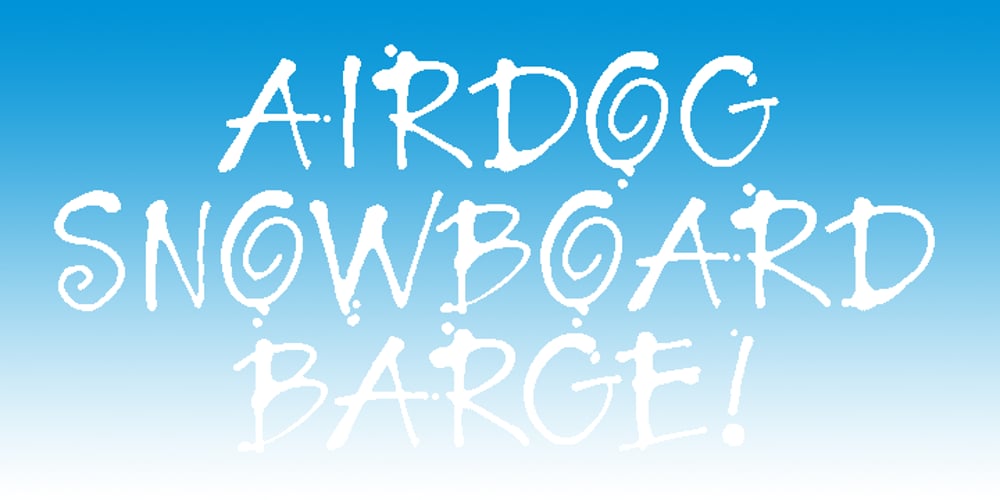
Babaloo Font Family was designed by Lisa Holtzman and published by Lisa Holtzman. Babaloo contains 1 styles and family package options. Originally executed using a stick and sumi ink, Babaloo is Lisa’s first digital font. While great in larger point sizes, Babaloo is surprisingly legible in small point sizes as well. Its quirky, spontaneous nature makes it ideal as a casual, fun, display font.